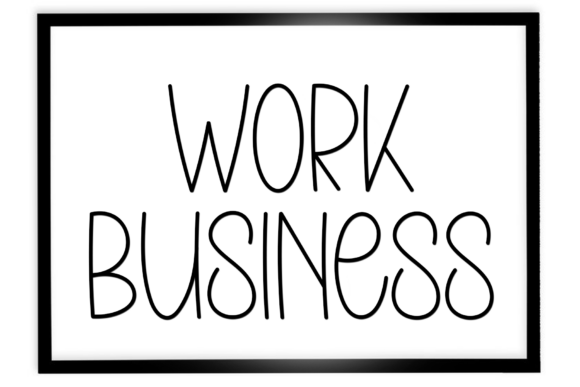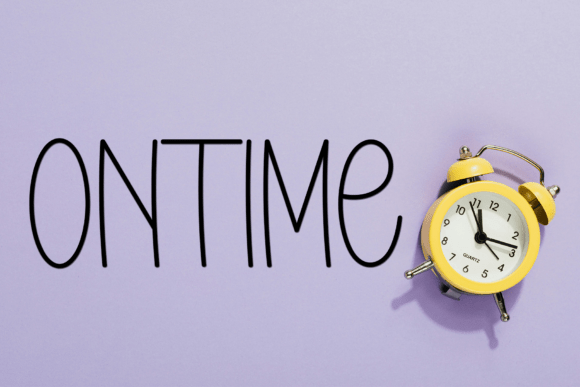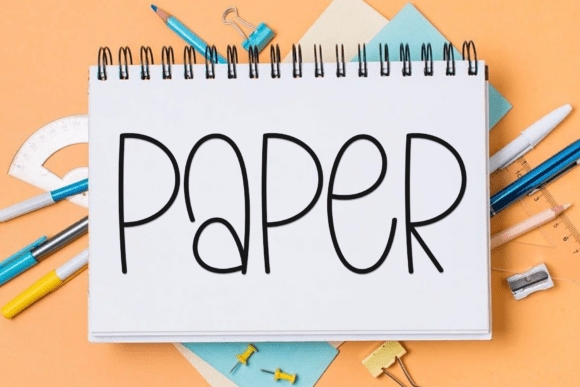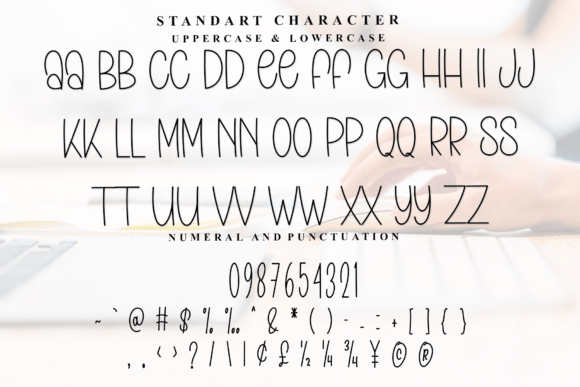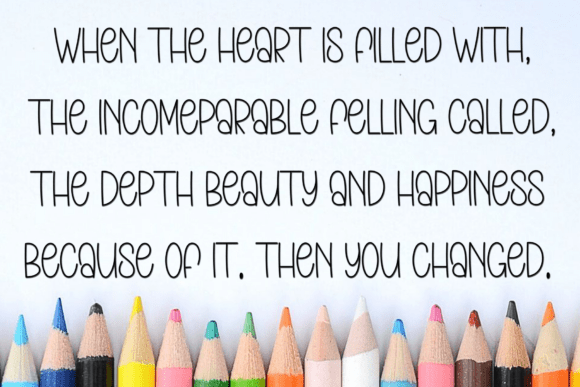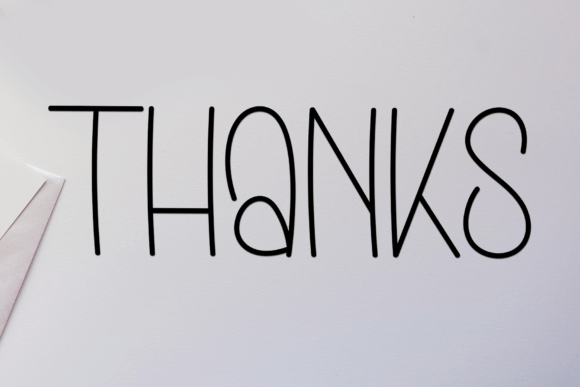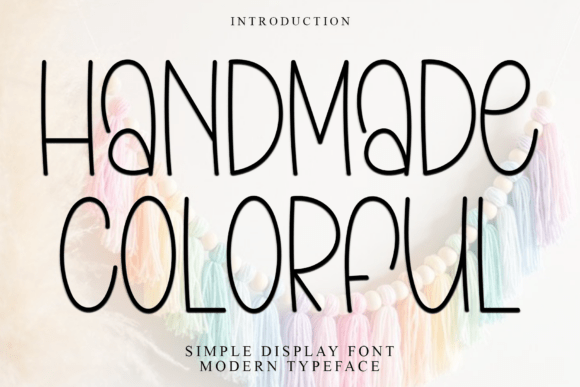
Introducing Handmade Colorful Font: A Festive and Merry Typeface for Your Holiday Designs
The holiday season is upon us, and what better way to get into the spirit than with a font that’s as festive and merry as a Christmas tree? Look no further than the Handmade Colorful Font, a decorative typeface that’s sure to add a touch of enchantment to your designs. With its whimsical flair and nostalgic ambiance, this font is perfect for greeting cards, gift tags, and holiday-themed projects.
A Font that Captures the Spirit of the Holiday Season
Handmade Colorful Font is a unique and eye-catching typeface that’s designed to bring a smile to your face. Its decorative elements and playful ligatures evoke the magic of the holiday season, making it the perfect choice for designers and crafters who want to add a little extra something special to their work. Whether you’re creating holiday cards, gift tags, or festive flyers, this font is sure to make your designs stand out.
Handmade Colorful Font is a versatile typeface that’s perfect for a wide range of design projects. Here are just a few ideas to get you started:
- Greeting cards: Create beautiful and unique holiday cards that will make your friends and family feel special.
- Gift tags: Add a personal touch to your gifts with custom gift tags that feature the Handmade Colorful Font.
- Holiday-themed projects: From festive flyers to merry posters, this font is perfect for any holiday-themed project.
- Social media graphics: Add a touch of holiday cheer to your social media graphics with this fun and festive font.
Why Choose Handmade Colorful Font?
So why choose Handmade Colorful Font for your holiday designs? Here are just a few reasons:
- Unique and eye-catching: This font is sure to make your designs stand out from the crowd.
- Festive and merry: It’s the perfect choice for holiday-themed projects.
- Versatile: This font is perfect for a wide range of design projects, from greeting cards to social media graphics.
Get Ready to Add Some Holiday Cheer to Your Designs
In conclusion, Handmade Colorful Font is a unique and eye-catching typeface that’s perfect for holiday-themed projects. With its decorative elements, whimsical flair, and PUA encoding, this font is sure to make your designs stand out from the crowd. Whether you’re a designer or crafter, this font is a must-have for anyone looking to add some holiday cheer to their work. So why wait? Download Handmade Colorful Font today and get ready to make your designs shine!